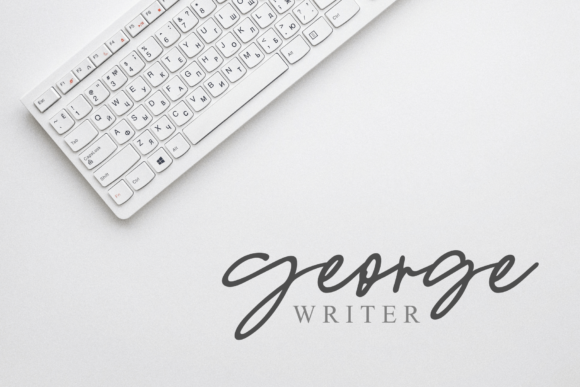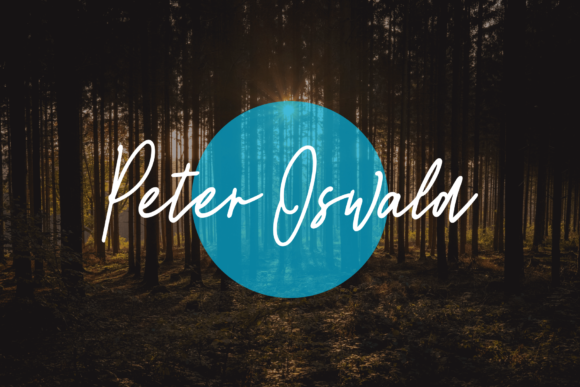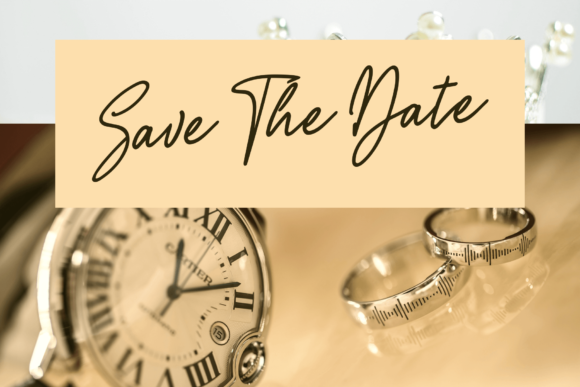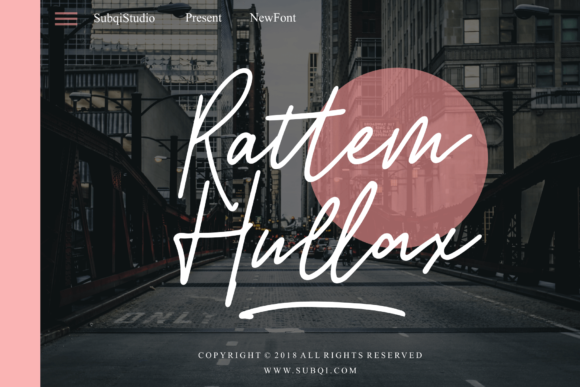
Introduction to Rattem Hullax Font
The Rattem Hullax is a beautiful signature typeface.
It has a handwritten ballpoint pen feel to it and will give your design an organic touch .
Rattem Hullax Font offers exceptional quality and versatility, making it a valuable addition to your design toolkit. Whether you’re creating for personal projects or commercial use, Rattem Hullax Font delivers professional results.